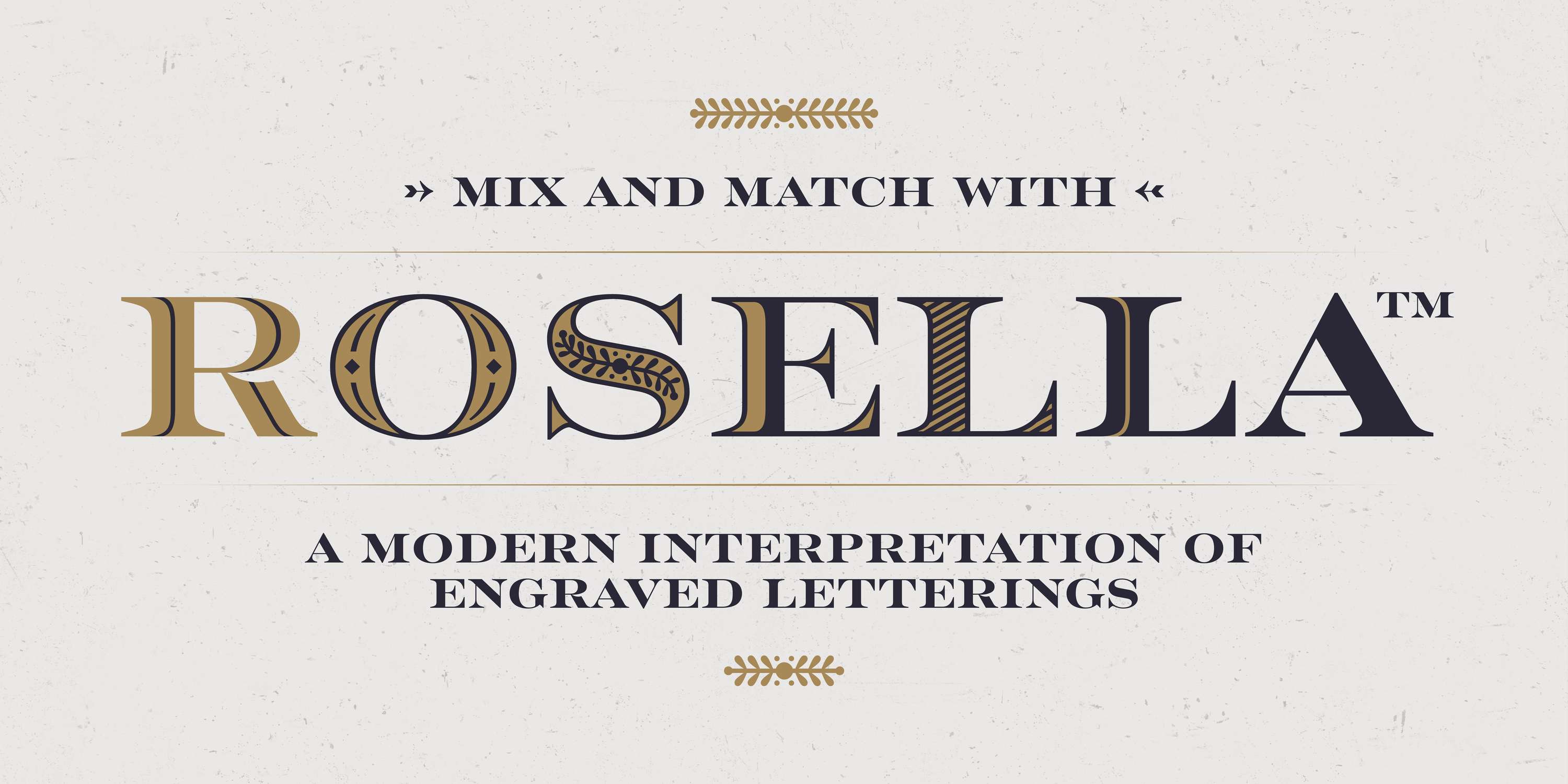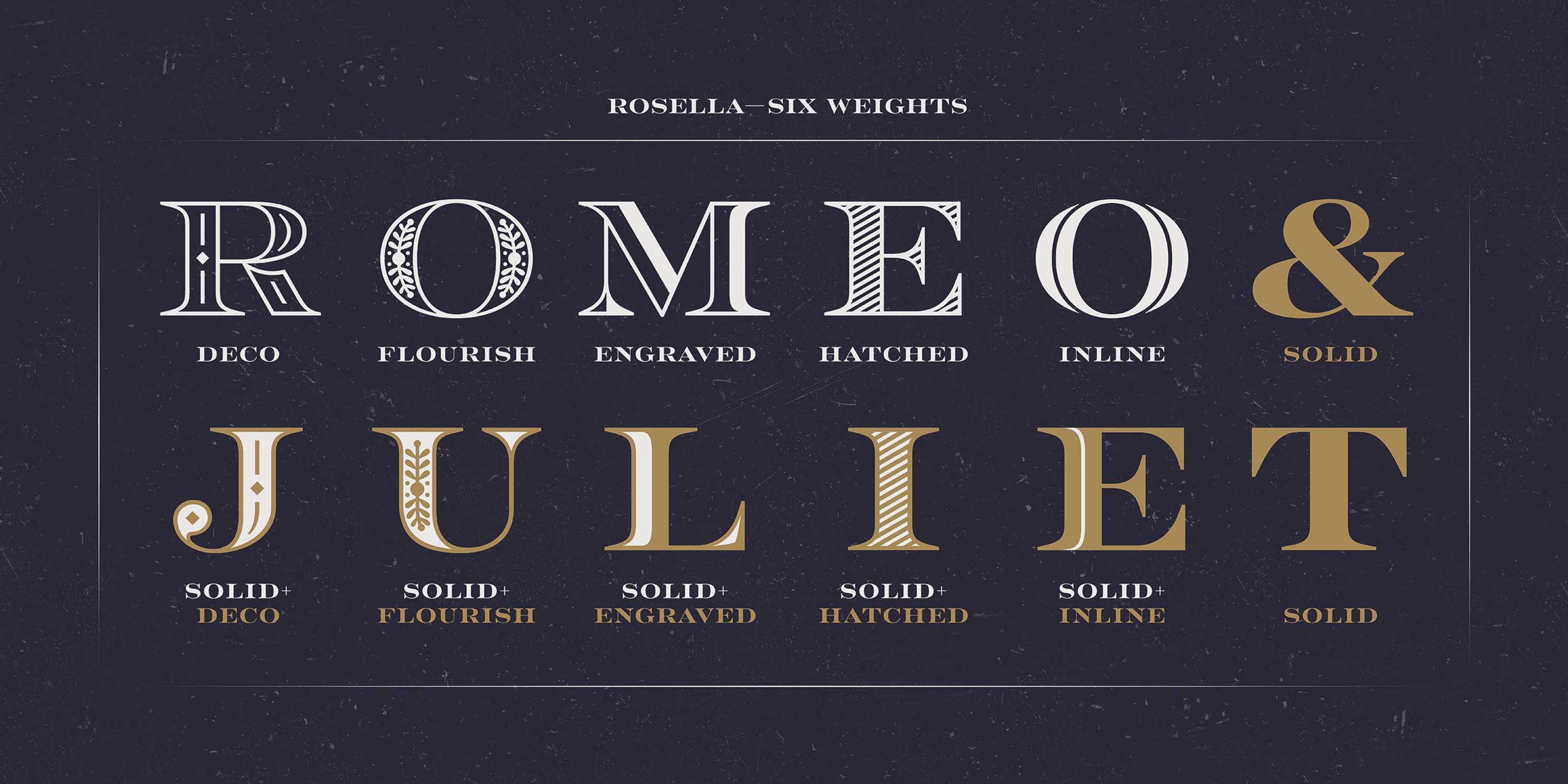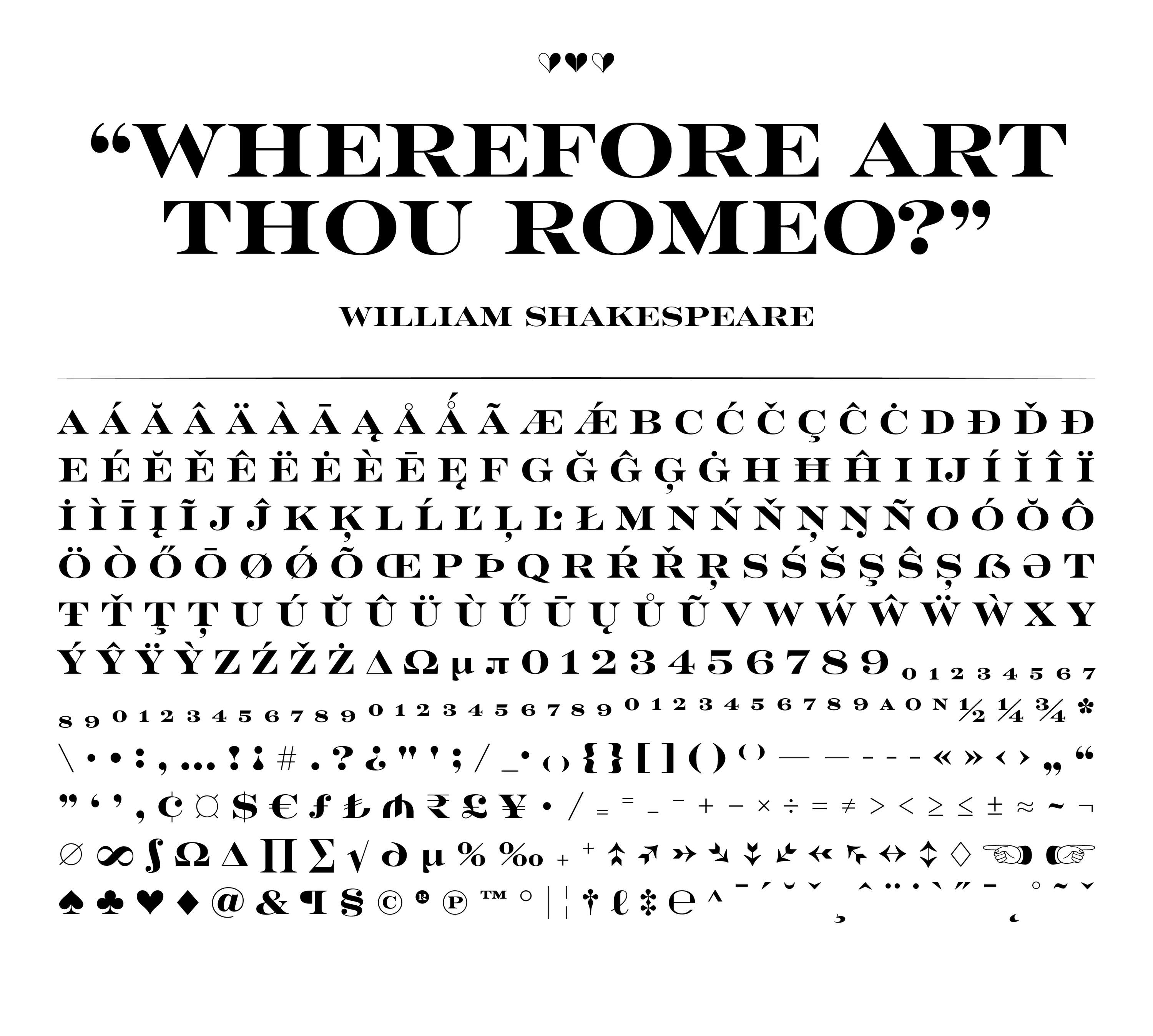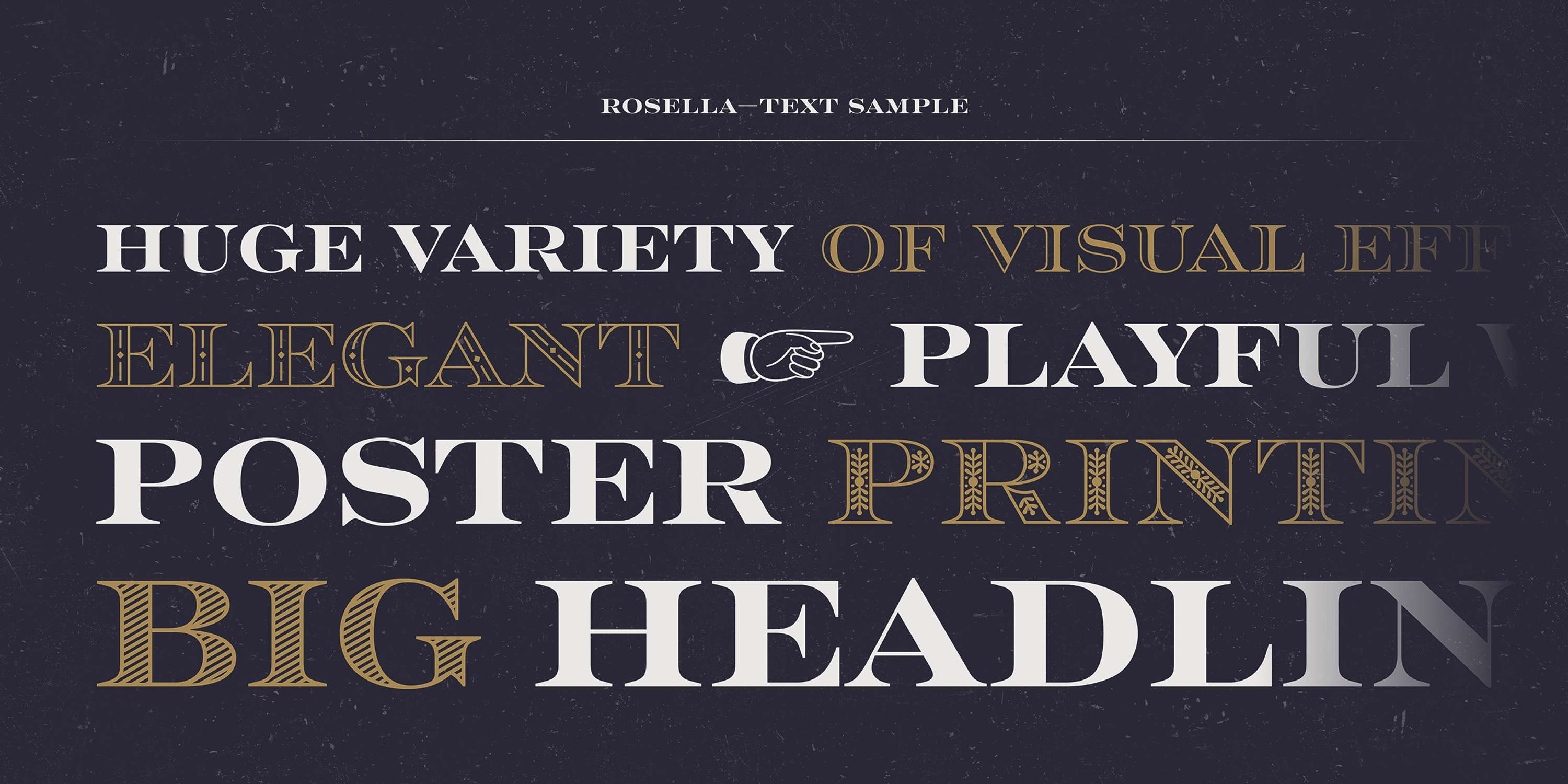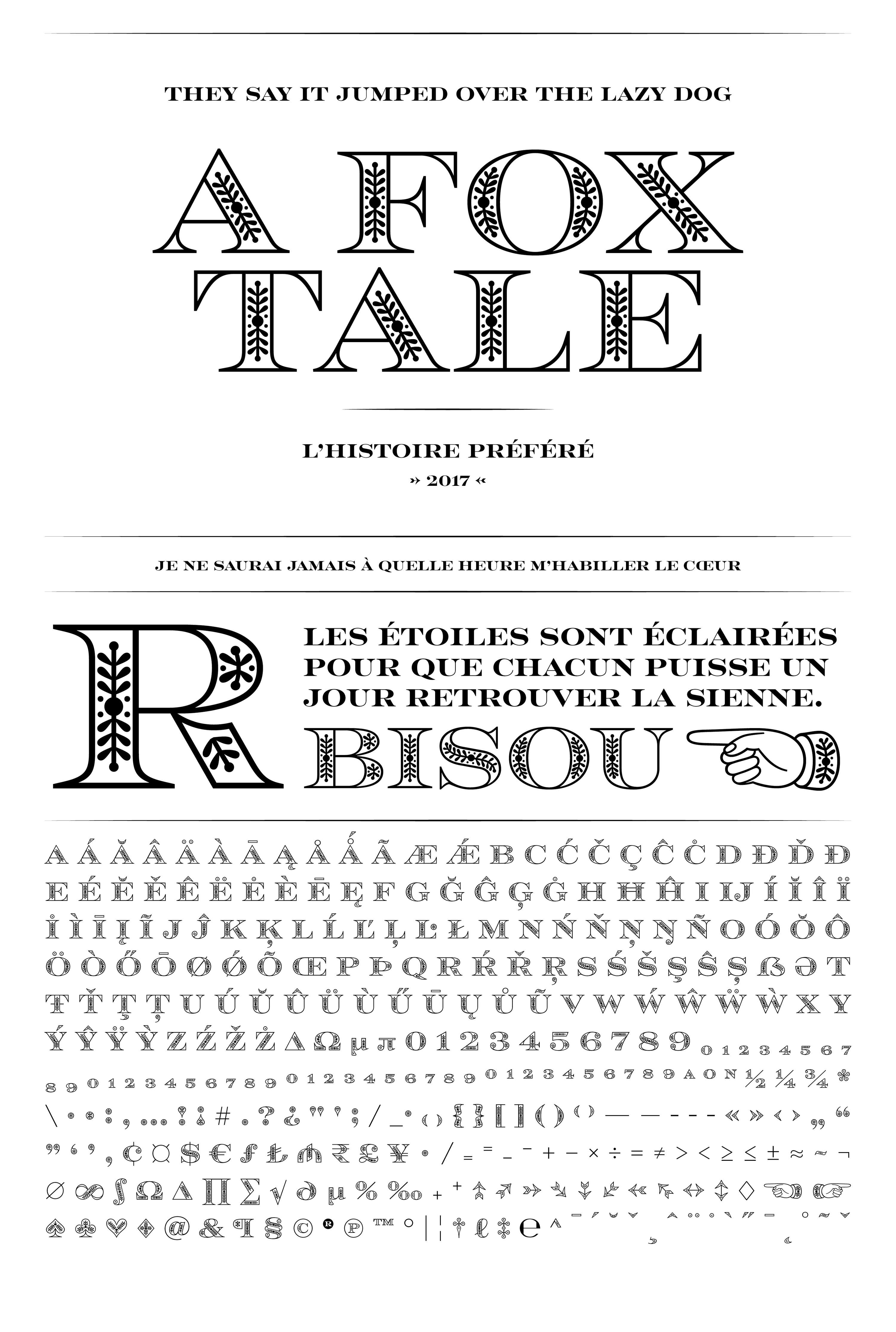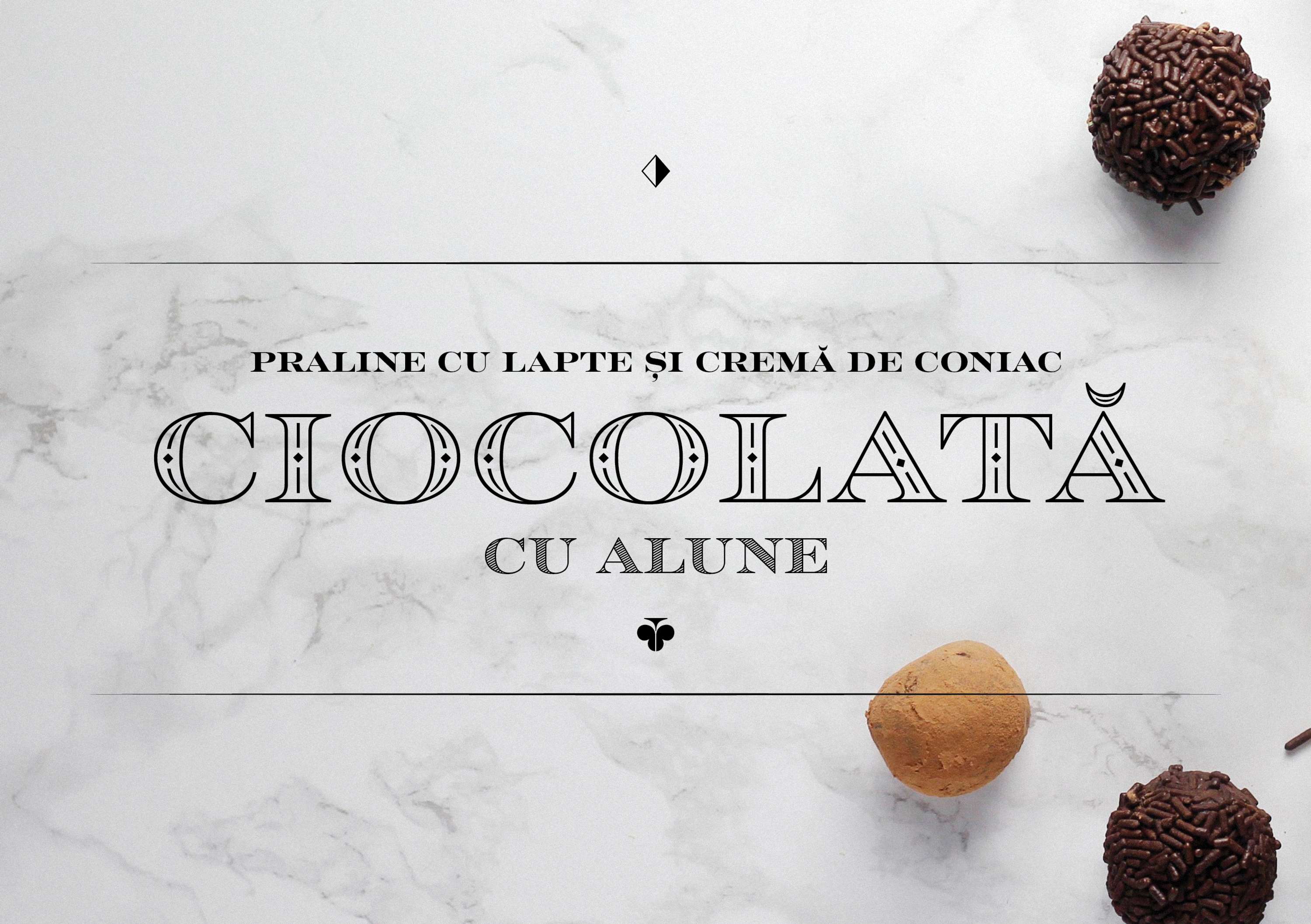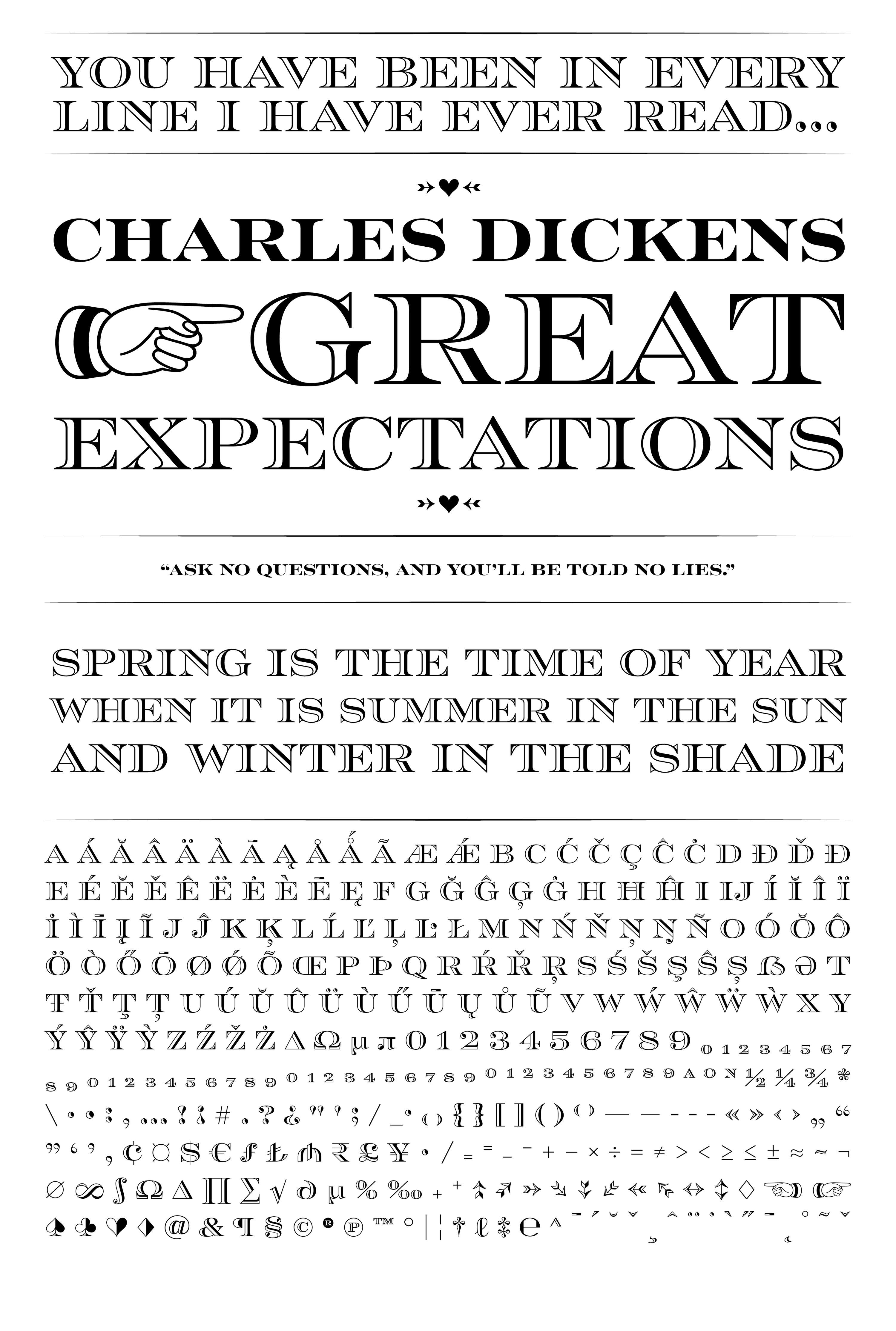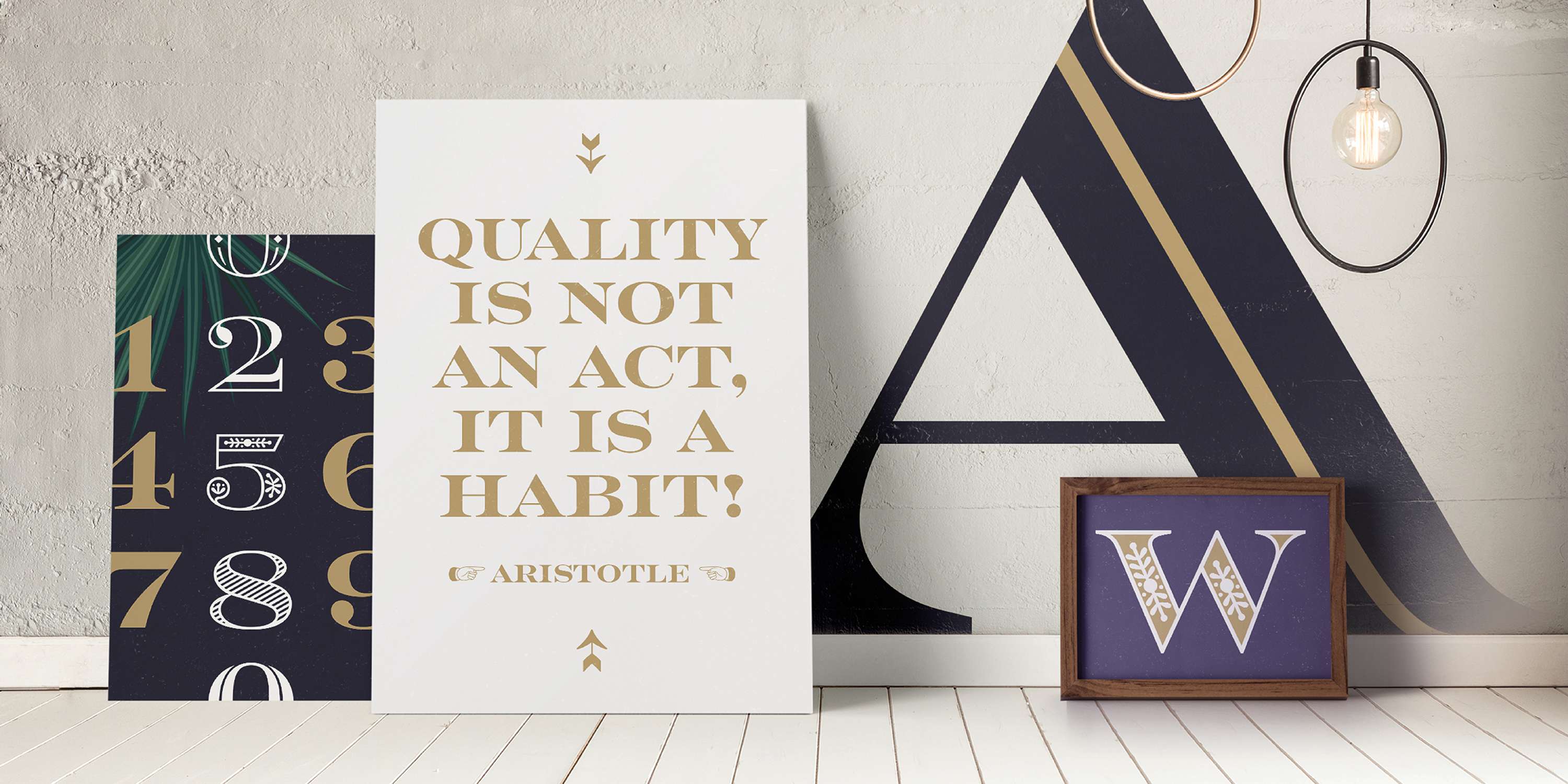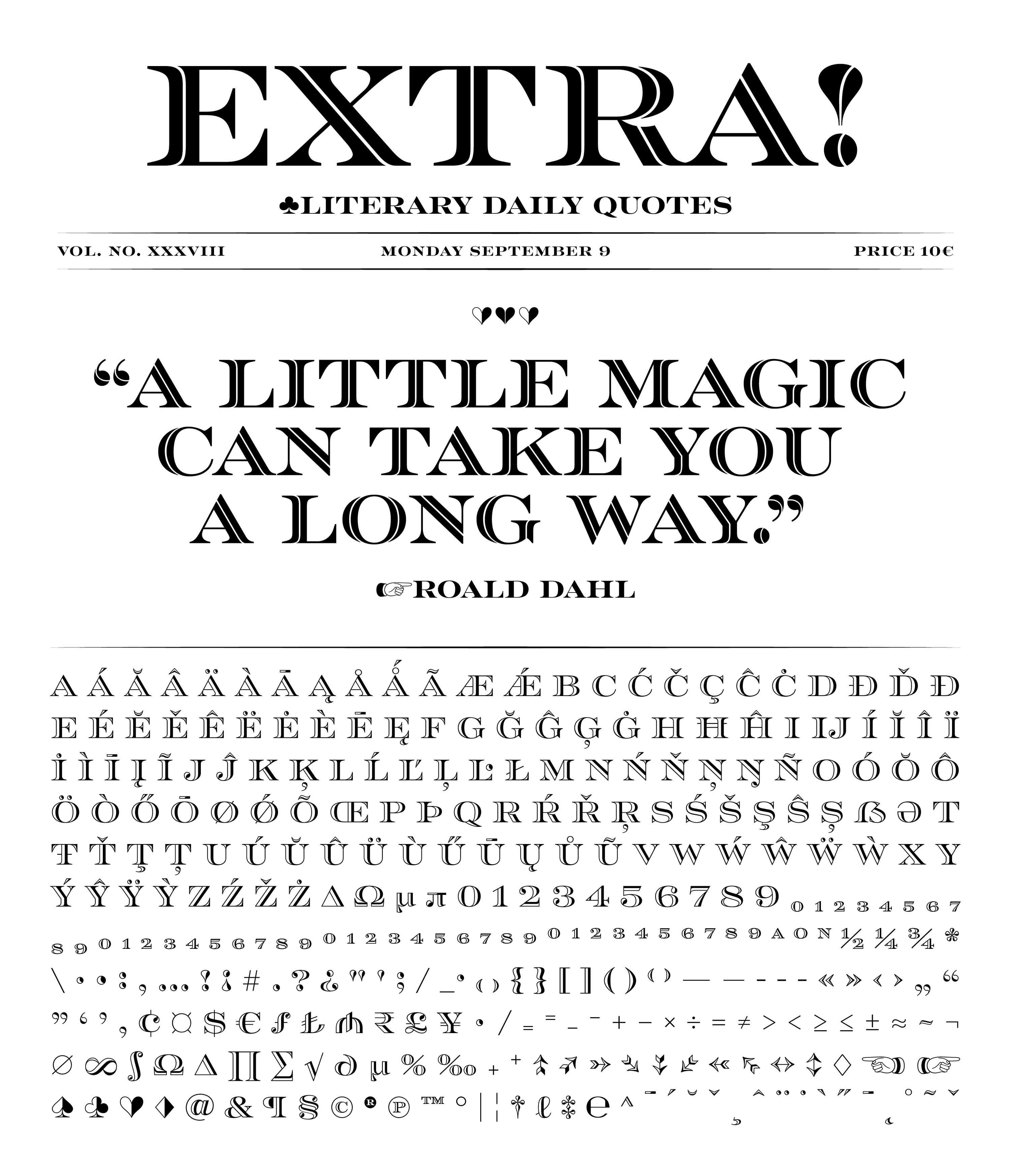
Rosella Typeface
Rosella Typeface by Sabina Chipara
Rosella was created over the course of six months, during a Monotype internship in London as part of Nadine Chahine team together with Toshi Omagari and Malou Verlomme.
I had the opportunity of visiting the Salfords type archive. While there, a version of the Engravers typeface caught my eye and I had the first spark of an idea.
Ornamental Rosella design draws on a long tradition of decorative typefaces, borrowing the elegance and intricacy of engraved letterforms, and lending them a contemporary twist. Working in the package design field I came to see how important the personality of type is and how much it can make the product stand out. Rosella also takes to color like the beautiful Australian parrot it is named after. Words set in the typeface come alive when vibrant colors, or tinted backgrounds become part of their plumage.
The type familly offers six weights, including a solid version and five different patterns. Each of these can be used on their own, or paired with one another to create intricate combinations. It is really versatile. You can do a lot of mix-and-match, and see what fits the voice you want to give it. As a result of this versatility it was one of Monotype the best sellers in 2017. Get the Rosella fonts: Rosella is included in the Monotype Library Subscription and it is also available for purchase on MyFonts and FontShop. Rosella is a trademark of Monotype Imaging Inc. and may be registered in certain jurisdictions.